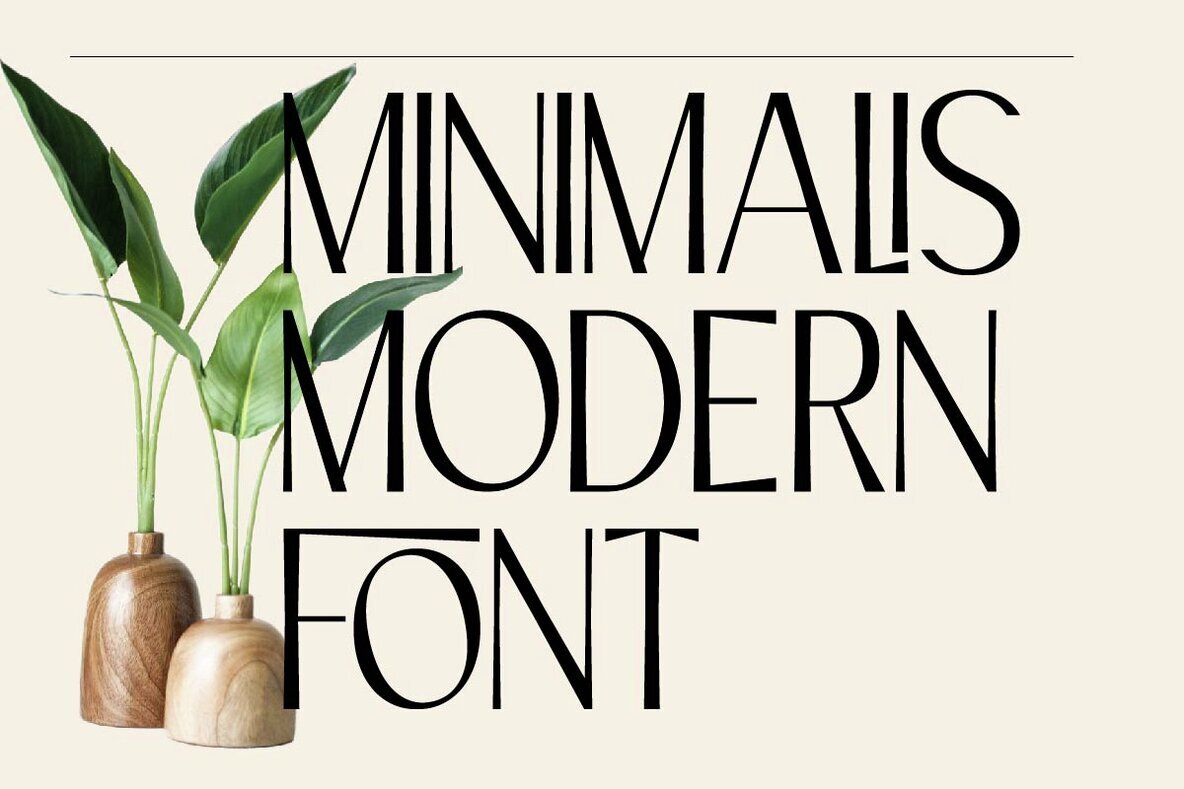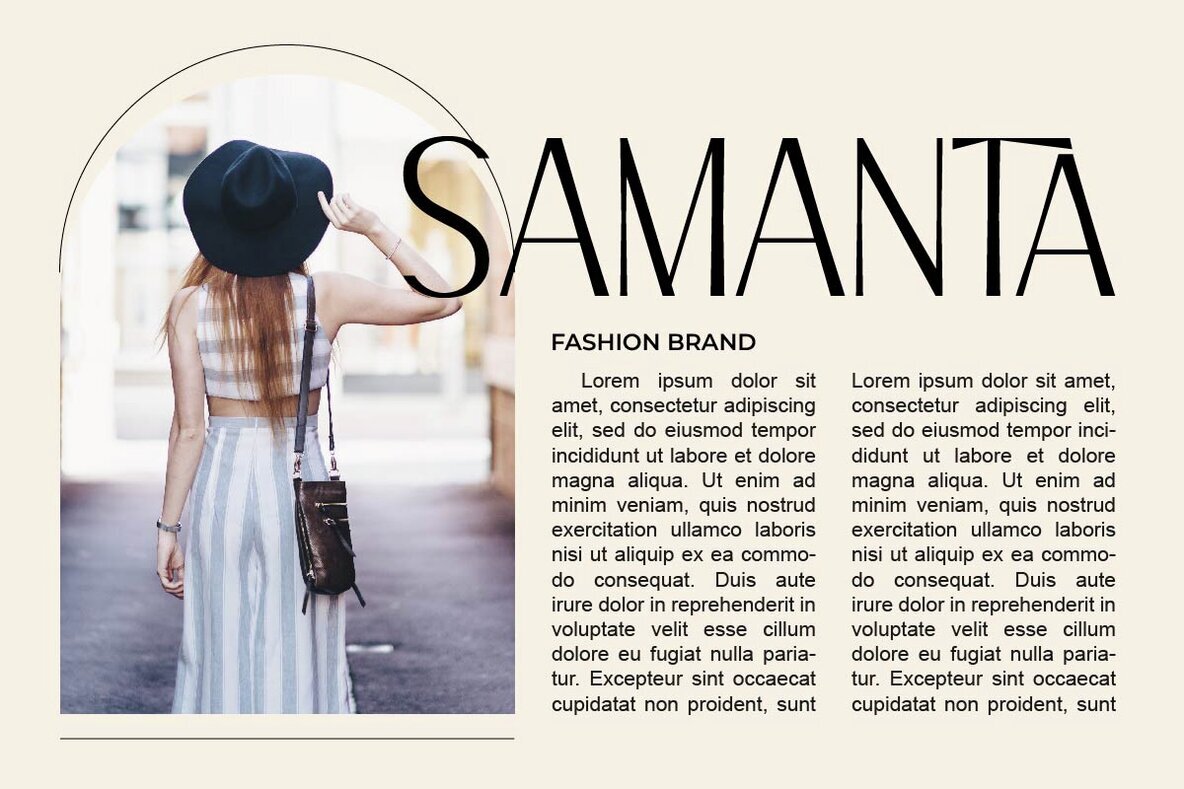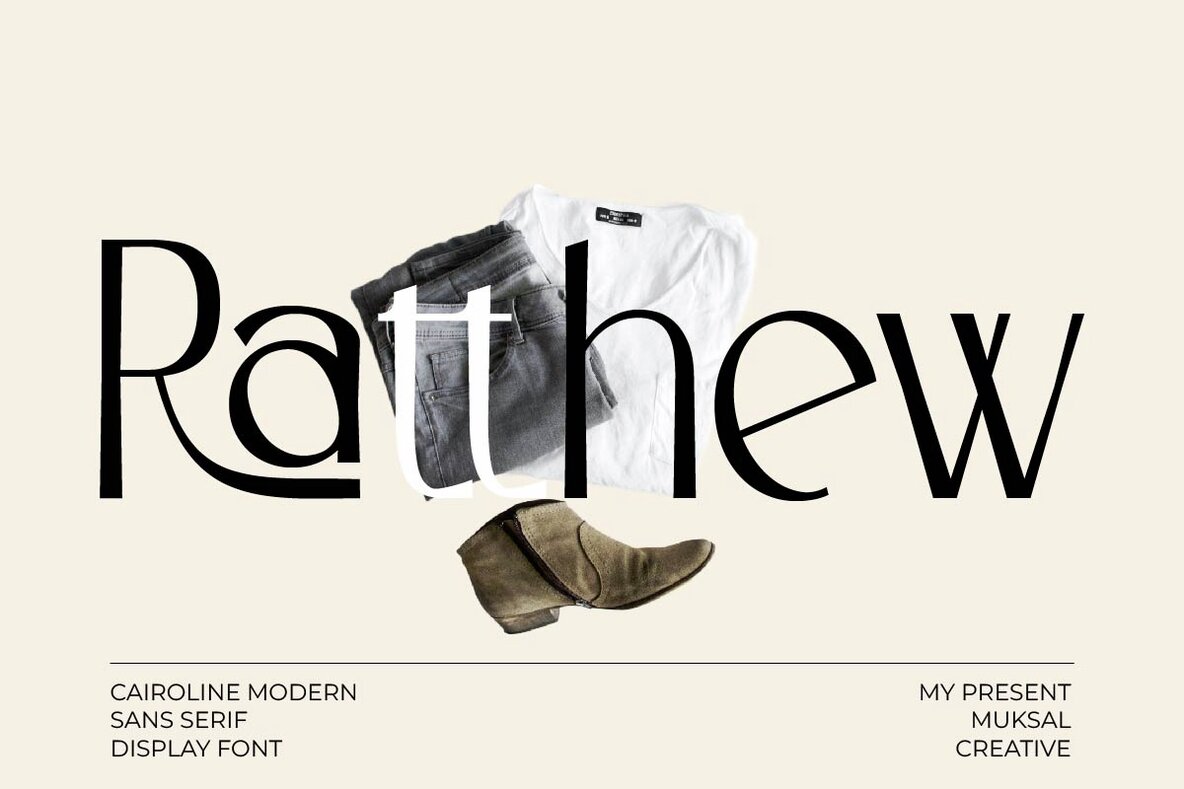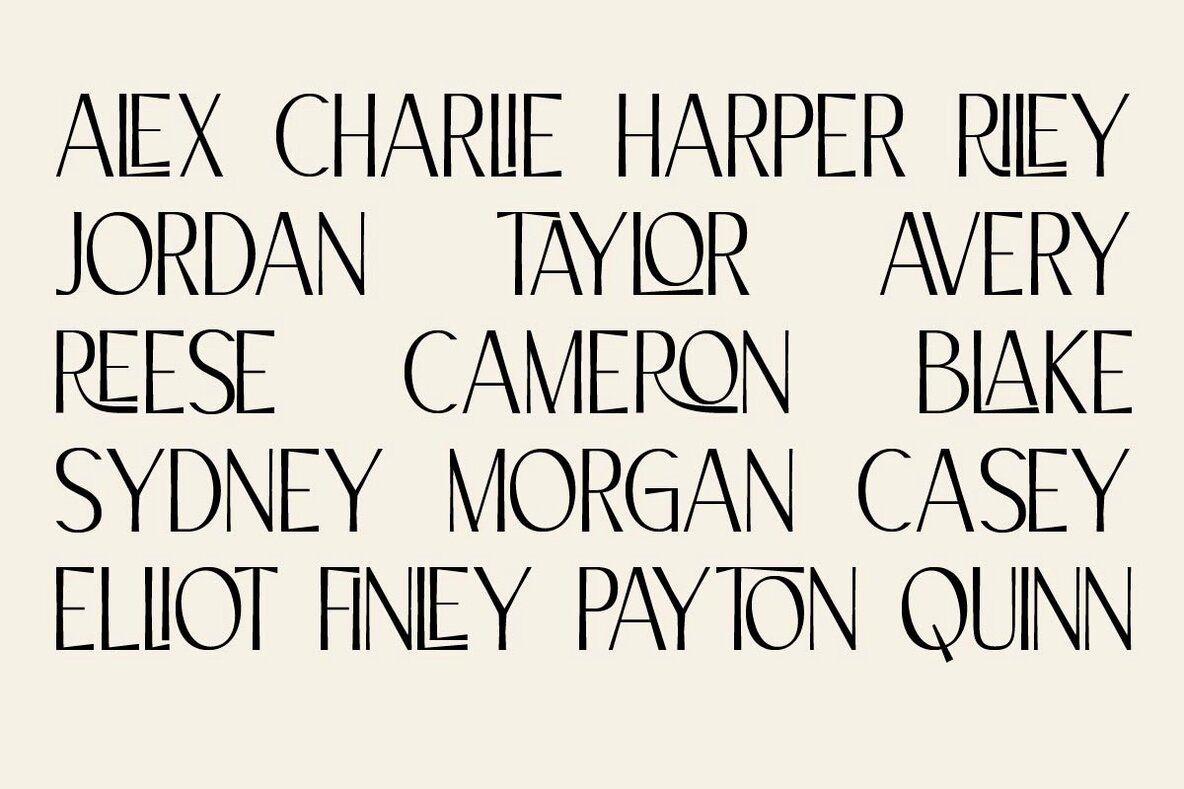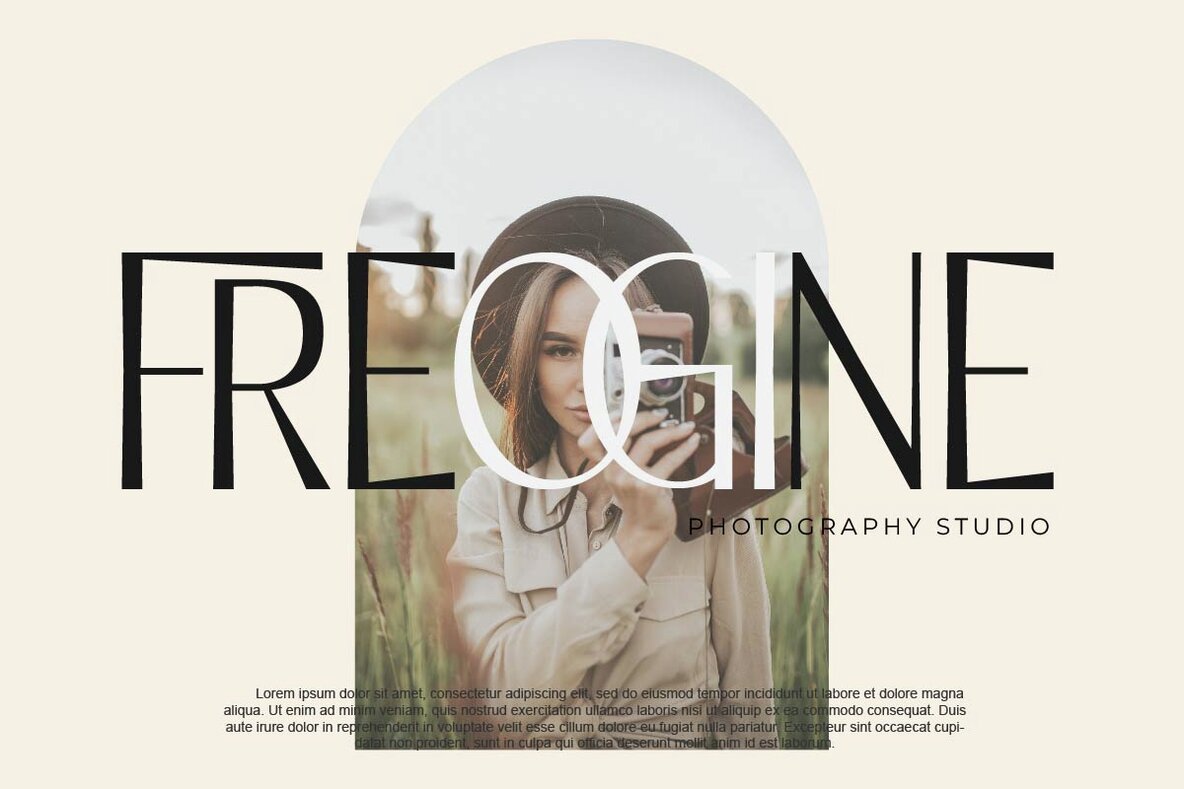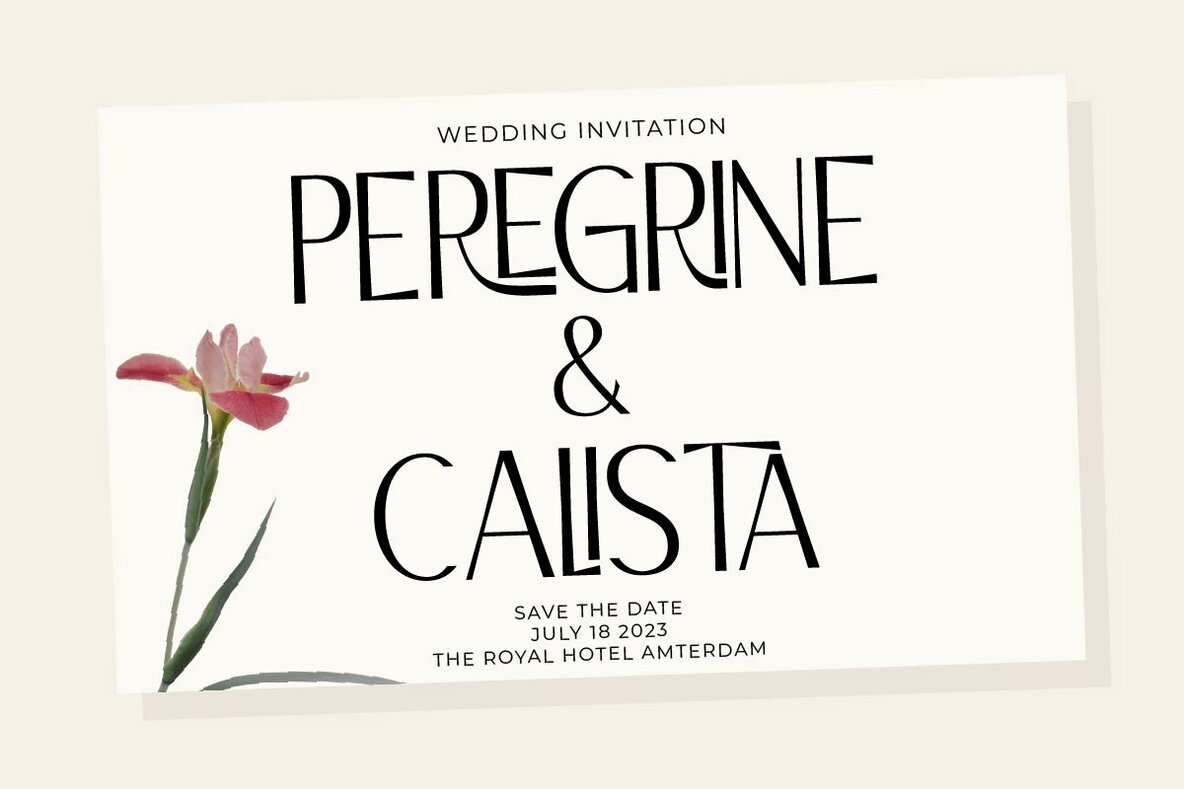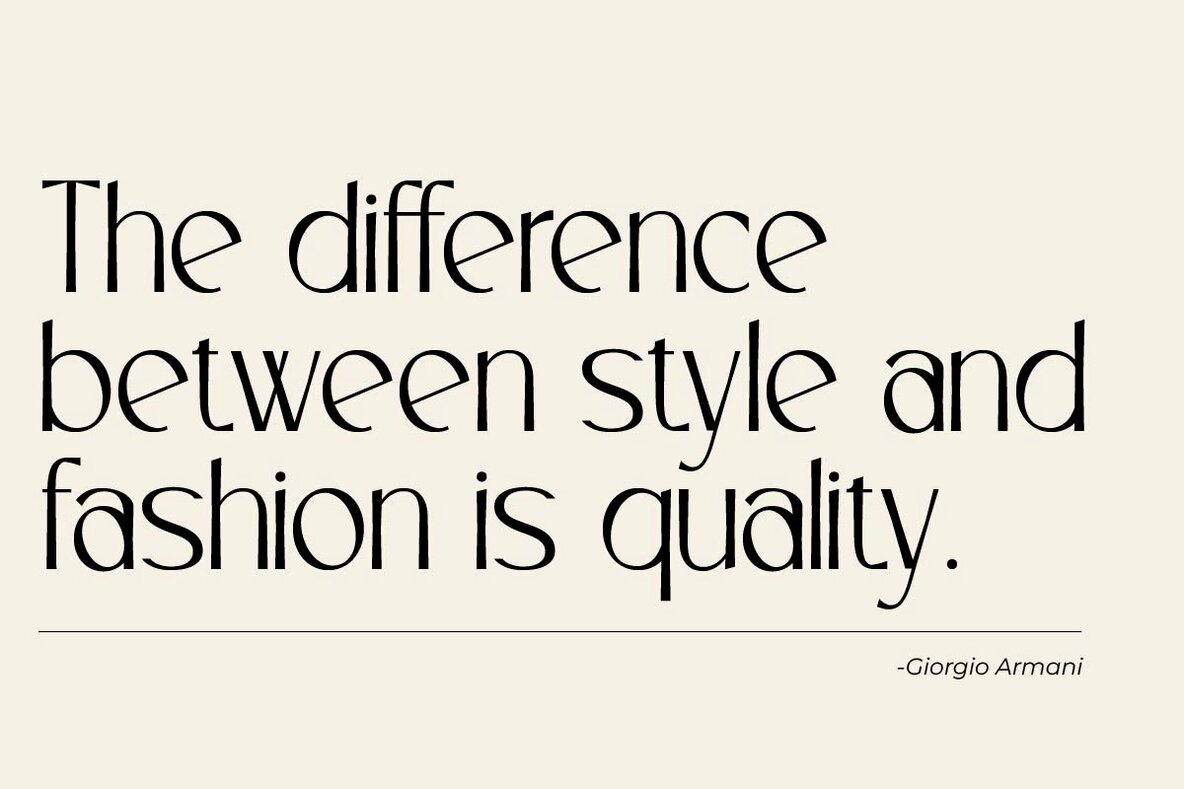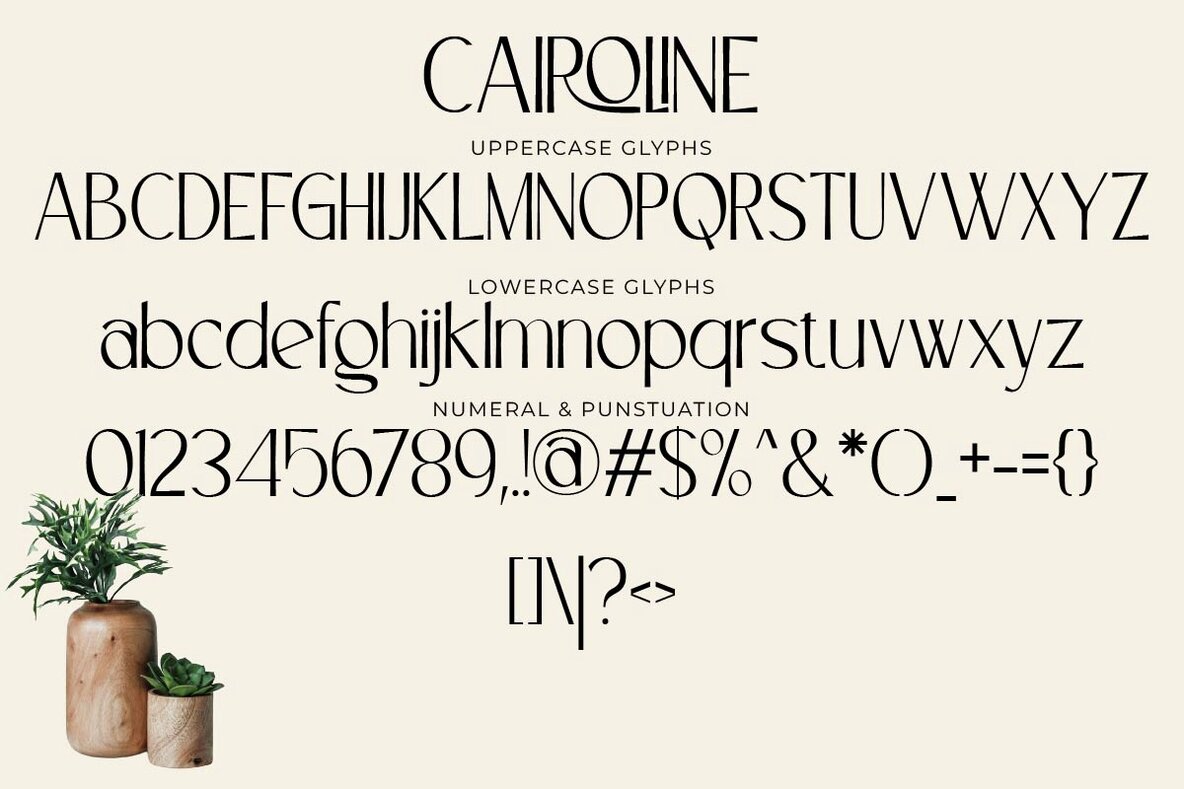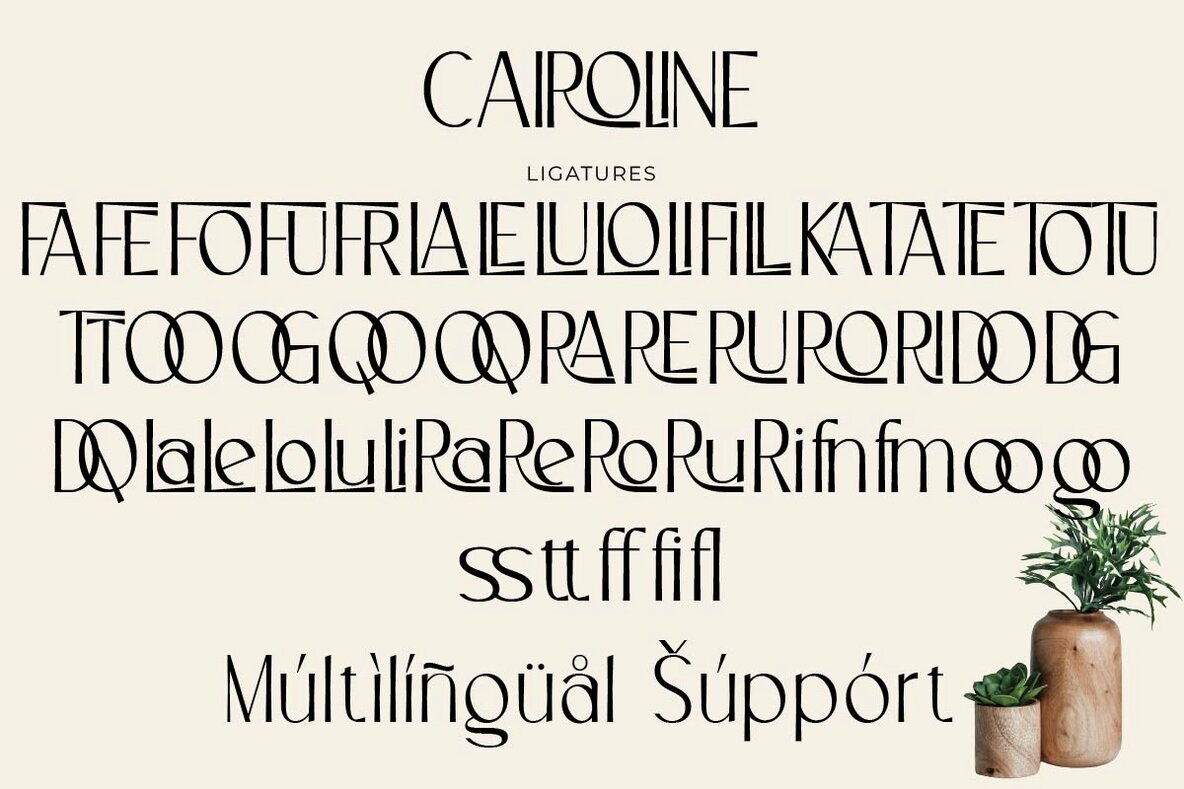
Cairoline Font
Cairoline Regular
Cairoline is a modern display sans serif font crafted by Muksal Creative. This versatile typeface includes unique glyphs, ornamental elements, and extensive multilingual support. Whether used for large or small sizes, it performs exceptionally well in various applications, including editorial projects, logo designs, clothing branding, product packaging, magazine headers, or as an elegant text overlay on background images. Cairoline supports multiple languages, enhancing its usability across diverse projects and audiences.Cairoline: Modern Display Sans Serif Font